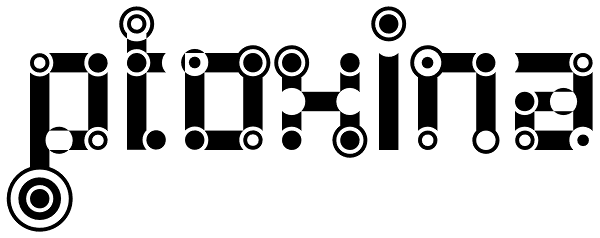
Ptoxina
Ptoxina. Pixels join Circles. Ptoxina is a new member oft the Atoxina family with experimental character. In this experimental hypnotic font pixels join circles.